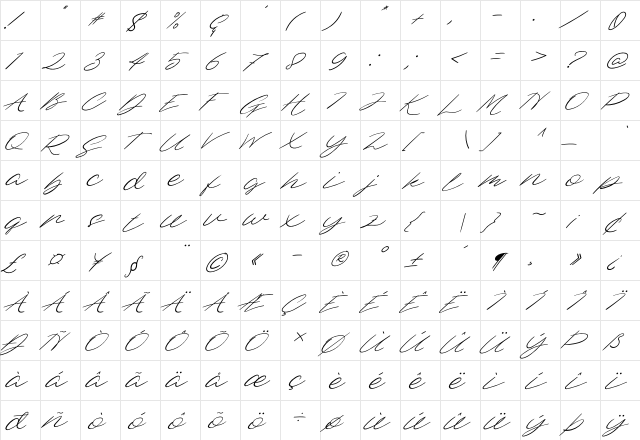
Dellafina Street Italic Regular
Design Context for Dellafina Street Italic Typeface
Dellafina Street Italic is a composed and adaptable typeface that performs quietly and consistently across a wide range of design contexts. The dynamic lean of this cut emphasises speed and emphasis in any layout.
Pro Tip: Use Dellafina Street Italic for emphasis, pull quotes, and subheadings where its slanted energy can add rhythm to the layout.